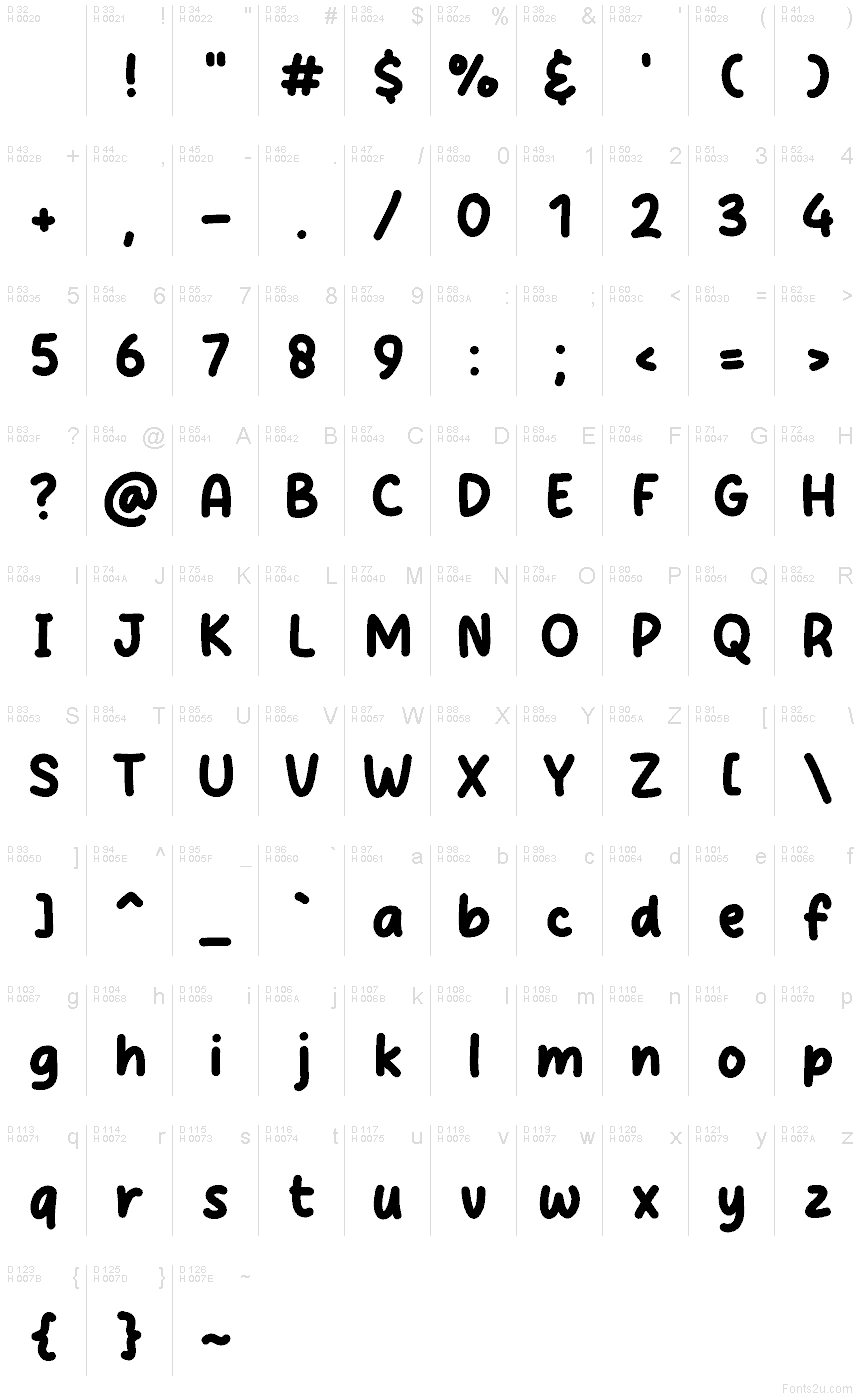
Atica Garden
Atica Garden font is a bold handwritten typeface created by MJType. It combines a modern aesthetic with smooth, uniform strokes in its design. The cohesive font features rounded shapes and letters created with impressive precision as if they’ve been written by a calligraphy master.